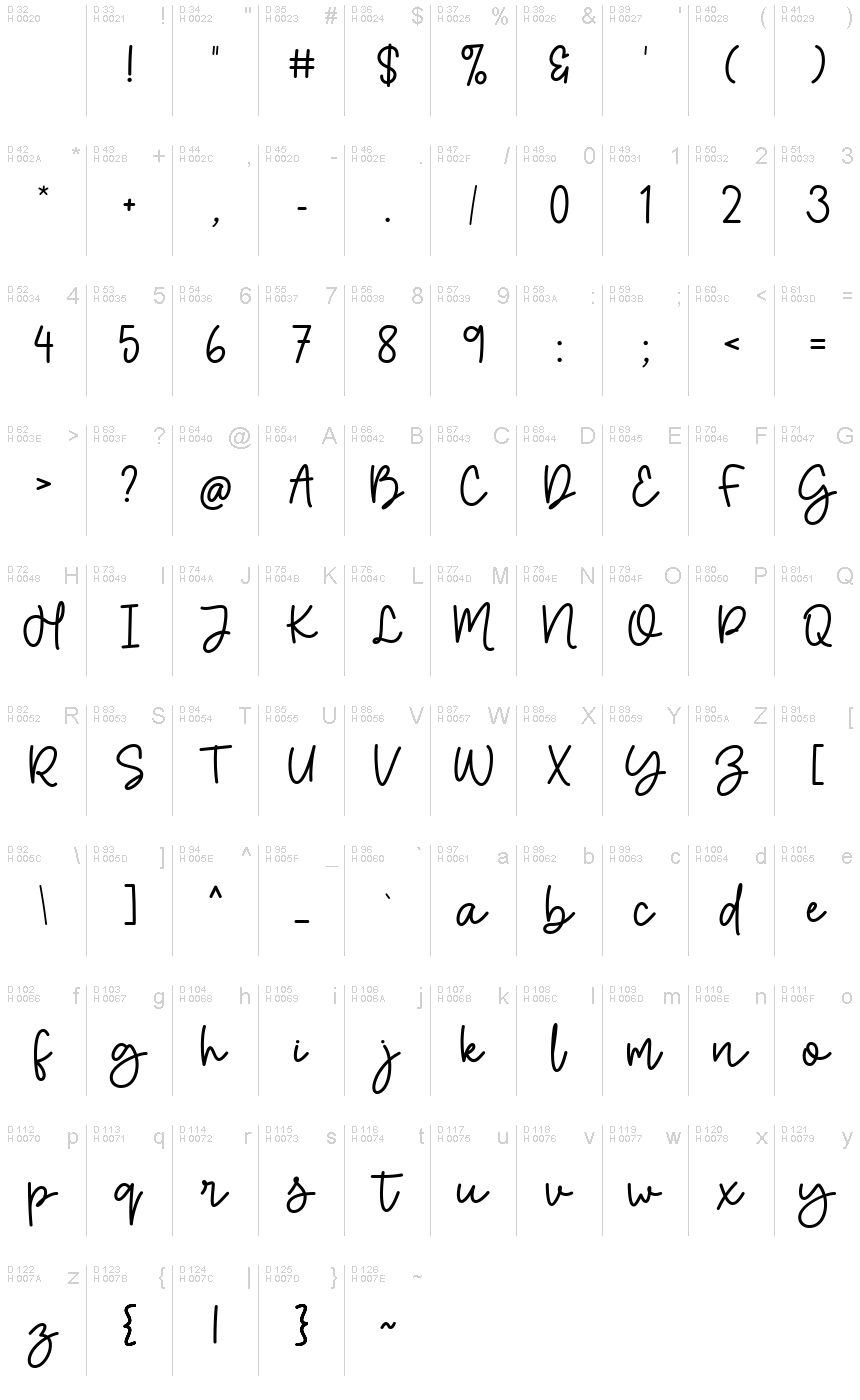
Missera Signature
Missera Signature font, designed by Keithzo, is an elegant, expressive script that embodies a flowing signature style. This captivating handwritten font captures the charm of a personal touch and adds an informal aesthetic to the project it’s used for. The gentle curves of the type appear effortless and still retain readable which enhances its overall visual appeal.
The free handwriting font is suitable for going into headings, titles and subheadings while being great in packaging design as well. Use it in small amounts to design covers of books or magazines, posters where a few eye-catching words are key parts or even short single-page releases such as invitations, tickets, greeting cards and many such visually impacting presentations with content on them.